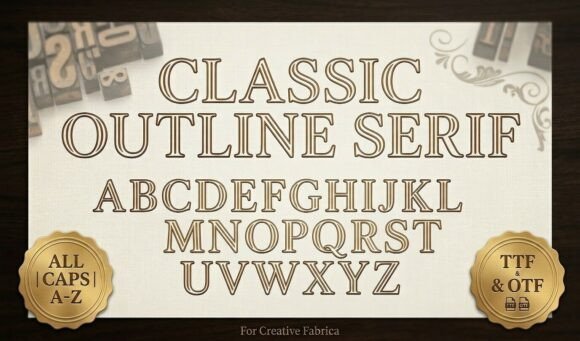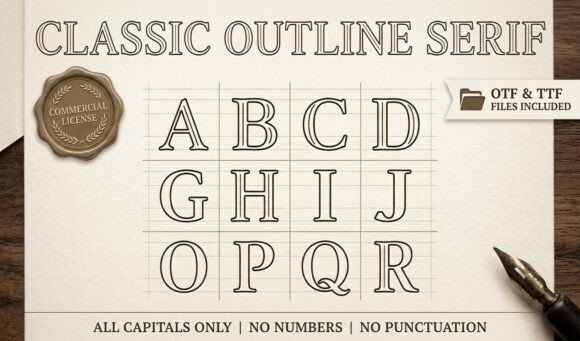
Discover the Timeless Charm of Classic Outline Serif Font
Have you ever sat at your desk, surrounded by scattered papers, glue sticks, and a sea of creative possibilities, feeling the rush of inspiration wash over you? It’s moments like these that we remember why we became designers in the first place. And, for those who love crafting, teaching, or designing digital content, the right font can be the difference between a great project and an unforgettable one.
Enter Classic Outline Serif Font, a clean, elegant, and versatile hollow font that’s perfect for making an impact in your next creative endeavor. This display font combines beautiful classic serif details with a clean hollow center, making it a must-have for designers who crave a unique touch. Whether you’re creating physical products or designing for vinyl, Classic Outline Serif Font is incredibly easy to work with, allowing you to focus on what matters most – bringing your vision to life.
Key Features of Classic Outline Serif Font
- Unique Characteristics: The Classic Outline Serif Font features a distinctive outline design, with bold lines and a classic serif style, making it ideal for use in traditional and formal settings.
Designer Review: Classic Outline Serif Font
I recently had the chance to work with the Classic Outline Serif Font, and I must say it’s a solid addition to any designer’s toolkit. ✨ One of the things that really stands out is its versatility. It’s perfect for creating clean and elegant headers, and its outline style makes it easy to stack and nest text.
- ✨ The font’s outline style is incredibly well-executed, creating a beautiful contrast with the text it surrounds.
- ✨ The font is highly legible, even at small sizes, making it perfect for body text or captions.
- ✨ The font is highly customizable, with a range of weights and styles available.
However, there are a few limitations to keep in mind. ⚠️ The font can feel a bit sterile at times, lacking the personality of some other serif fonts. Additionally, the outline style can sometimes make the text feel a bit disconnected from the surrounding design.
Overall, I’d give the Classic Outline Serif Font 4 out of 5 stars. It’s a solid choice for any designer looking for a clean and elegant serif font. While it may not be the most exciting font out there, it’s a reliable choice that’s sure to please.
The Classic Outline Serif Font is commonly used for:
- Creating elegant and sophisticated titles and headings.
- Adding a touch of vintage flair to designs.
- Creating infographics and charts with a classic feel.